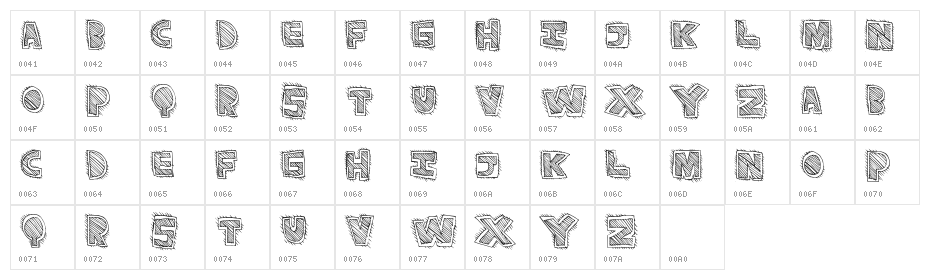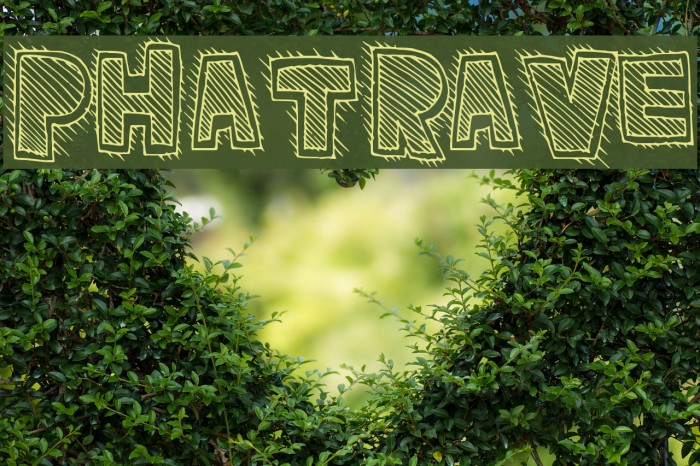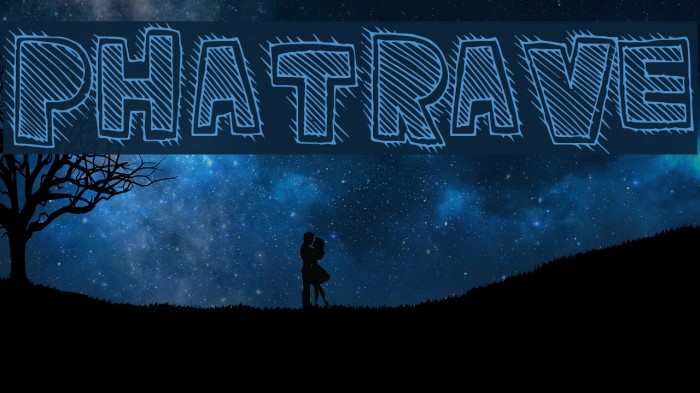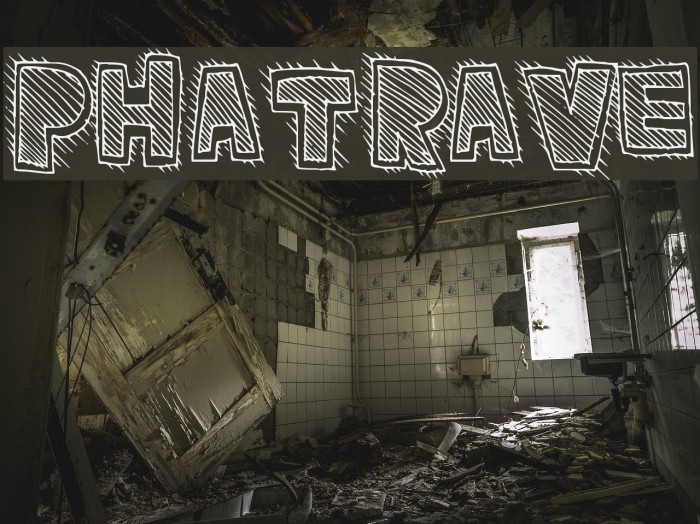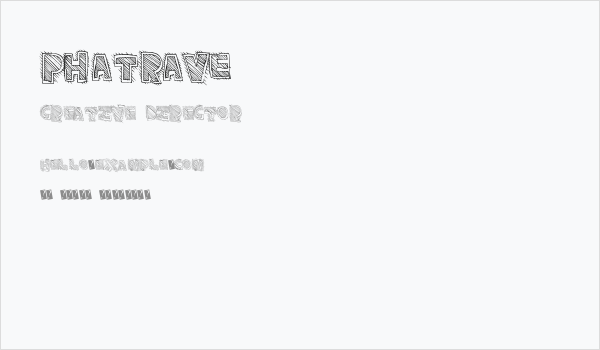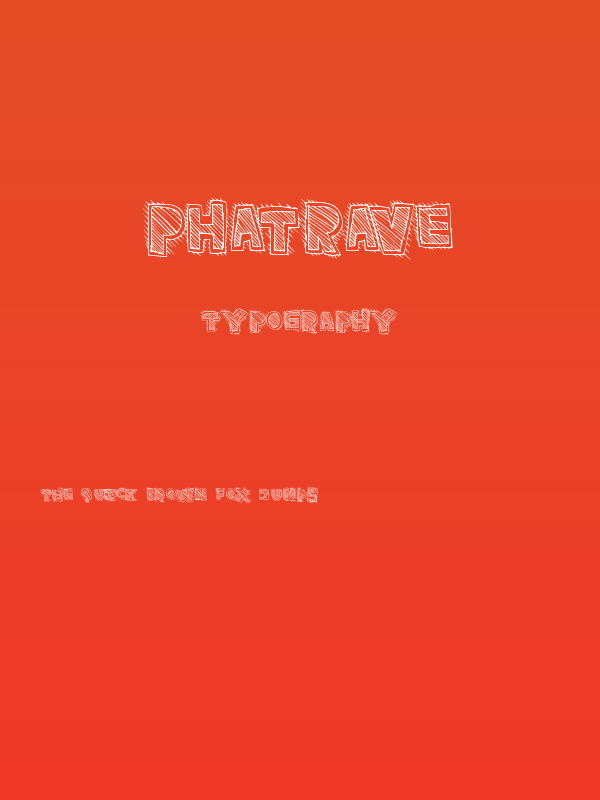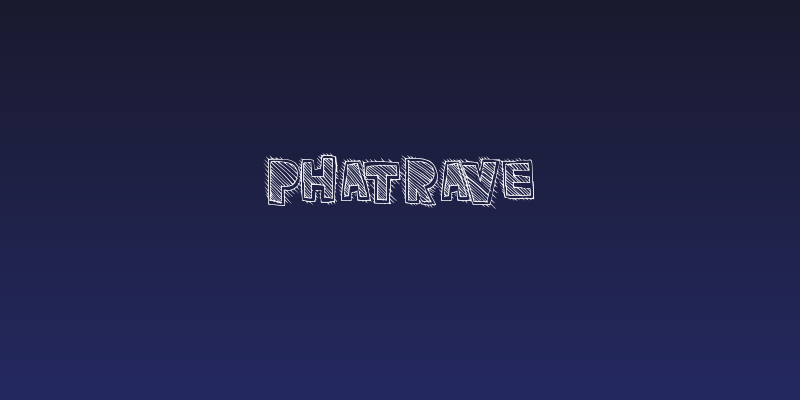
PhatRave Font
PhatRave Description
This font features a bold, playful design with a hand-drawn aesthetic. Each character is outlined with a thick, sketch-like stroke, giving it a dynamic and energetic feel. The letters are uppercase, with a consistent height and width, creating a uniform appearance. The style is reminiscent of graffiti or street art, with a sense of movement and spontaneity. The font lacks lowercase letters and numbers, focusing solely on uppercase characters. The unique design makes it stand out, ideal for projects that require a bold and artistic touch.
| Proposed Projects | Ideal for posters, album covers, street art designs, and creative branding. |